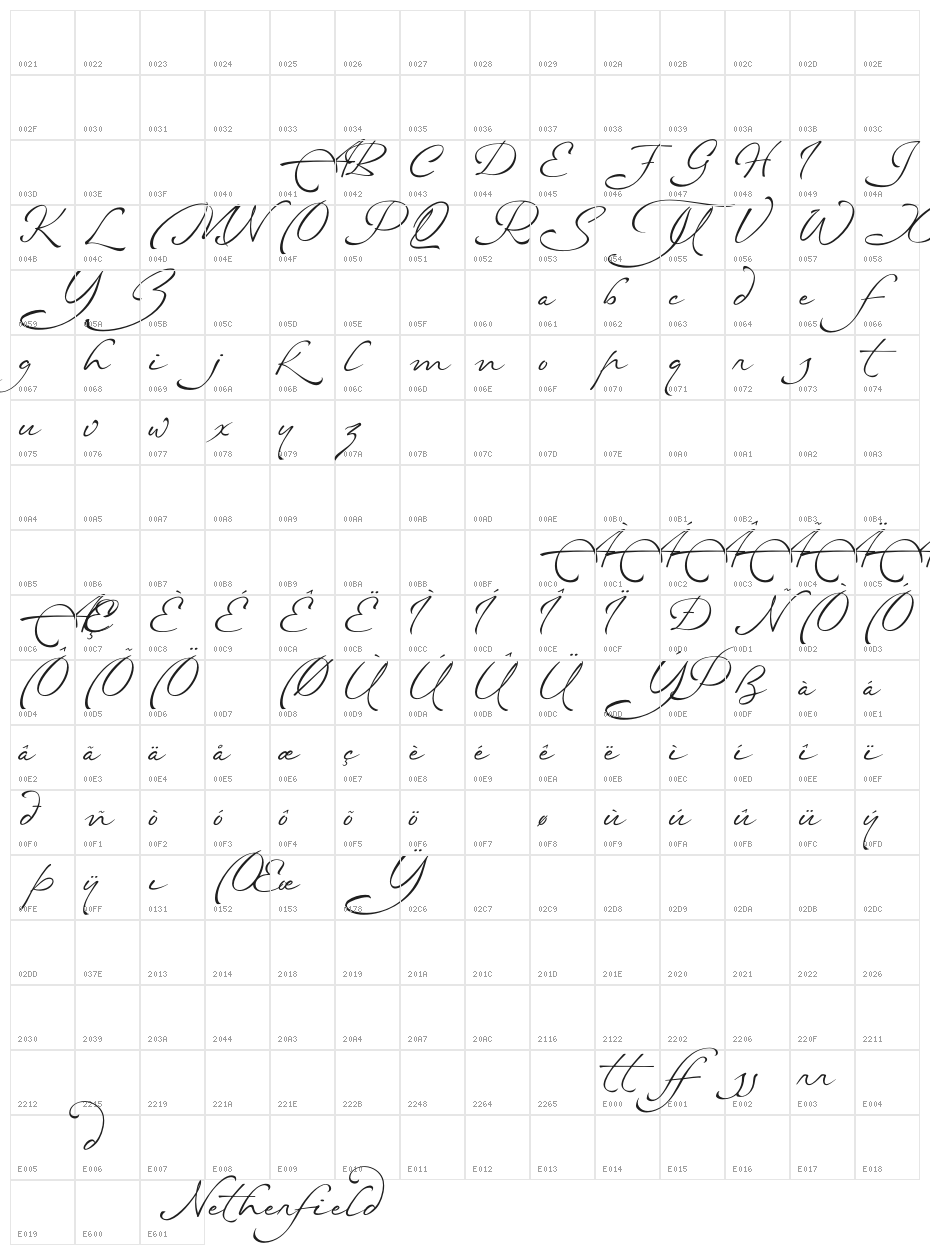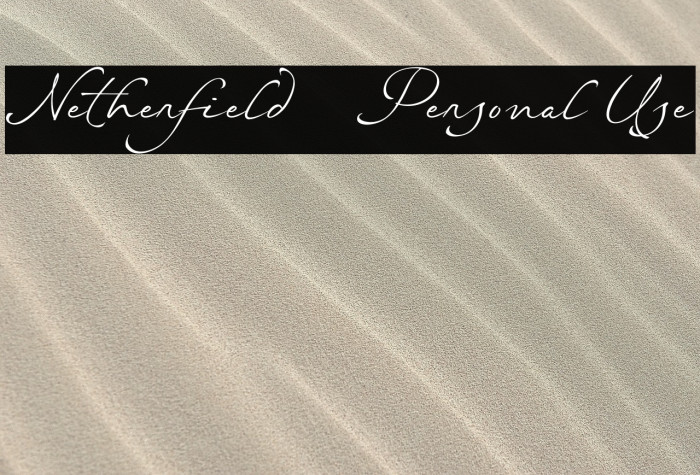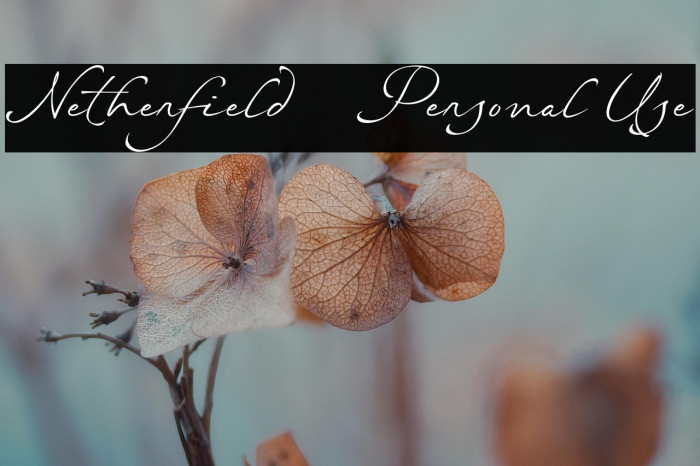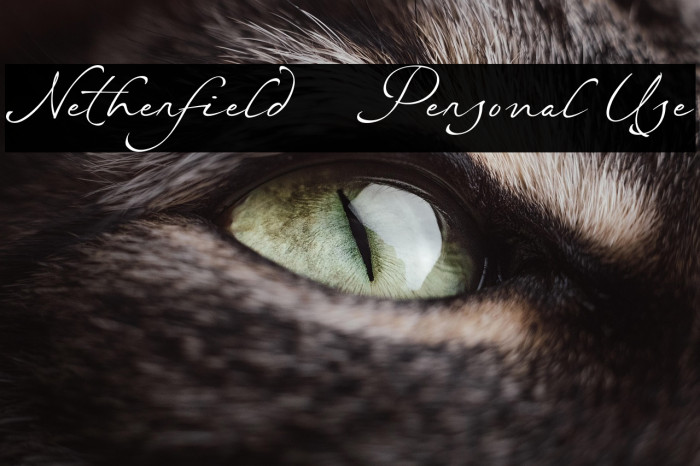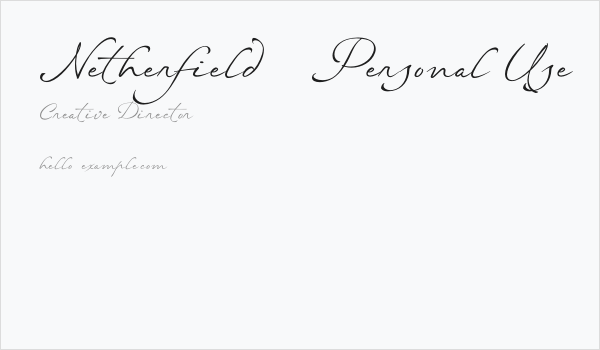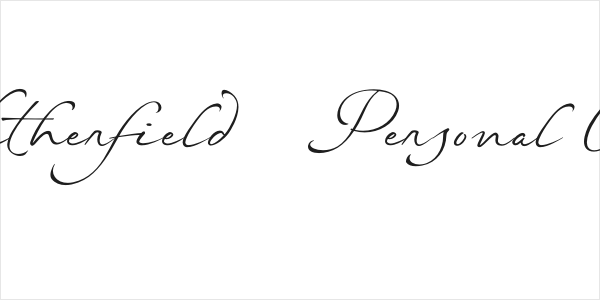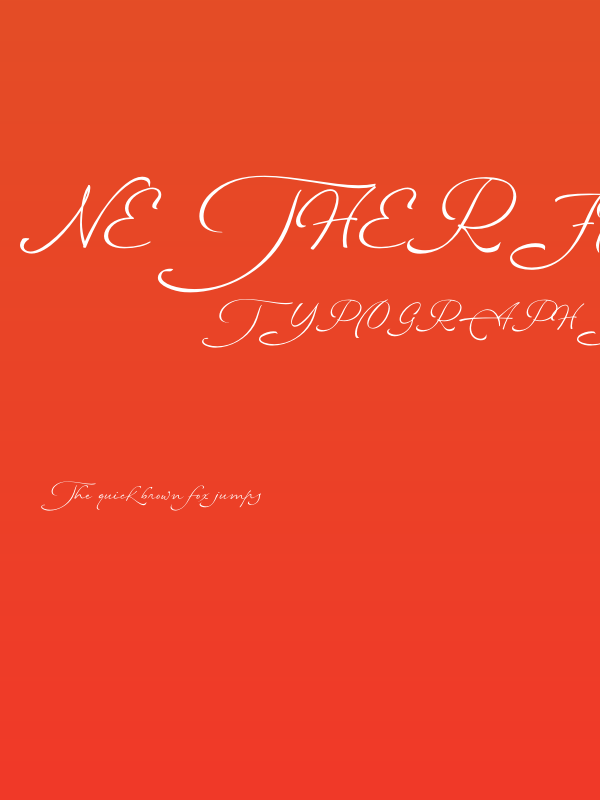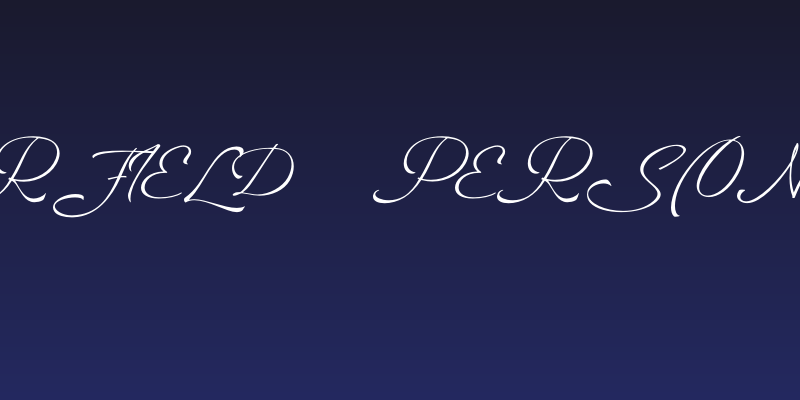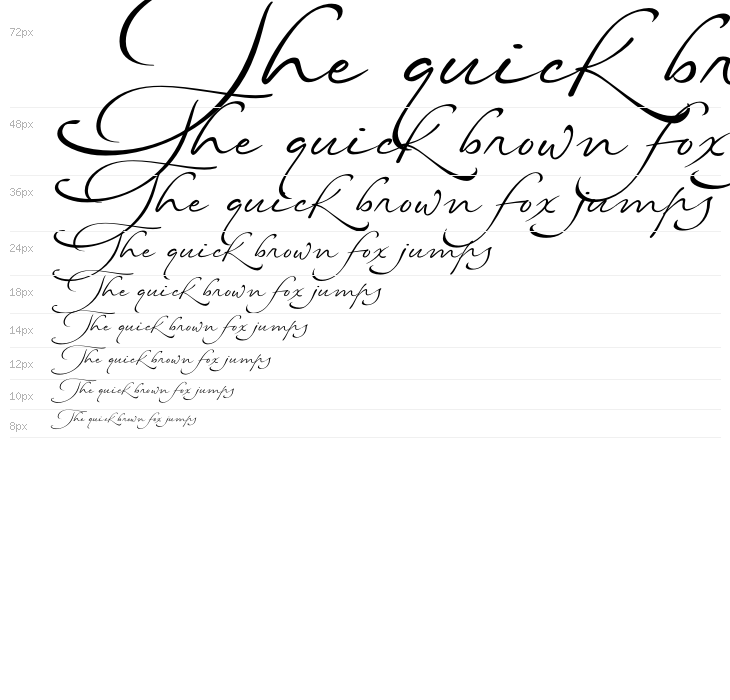
Netherfield - Personal Use Font
Netherfield - Personal Use Description
This elegant script font features a flowing, cursive style that exudes sophistication and grace. The uppercase letters are characterized by sweeping, dramatic flourishes, while the lowercase letters maintain a consistent, fluid motion. The strokes are smooth and connected, giving the font a handwritten appearance that is both classic and refined. The overall design is balanced, with a slight slant that enhances its dynamic feel. This font is perfect for projects that require a touch of elegance and personal flair, such as invitations, greeting cards, and branding materials.
| Use Case | Logos, Invitations, Personal stationery |
| Proposed Projects | Ideal for wedding invitations, elegant branding, personal stationery, and greeting cards. |